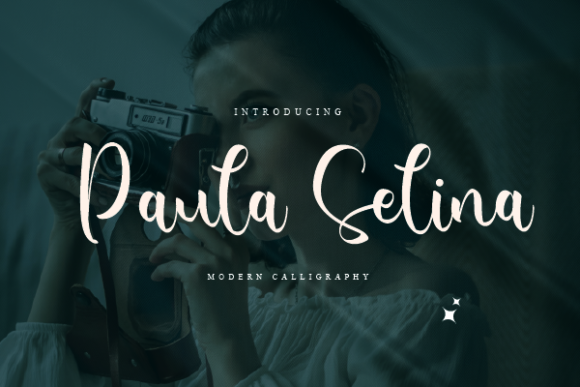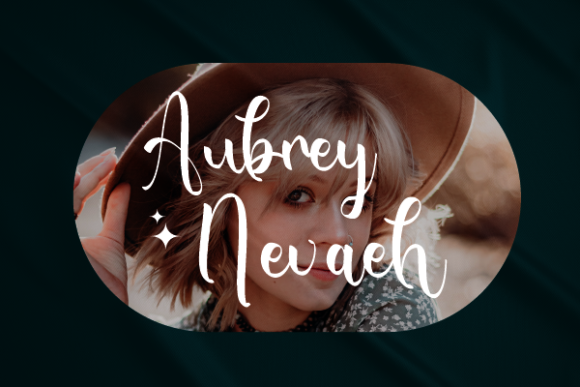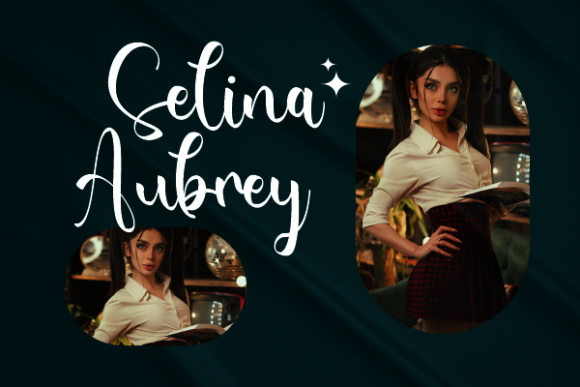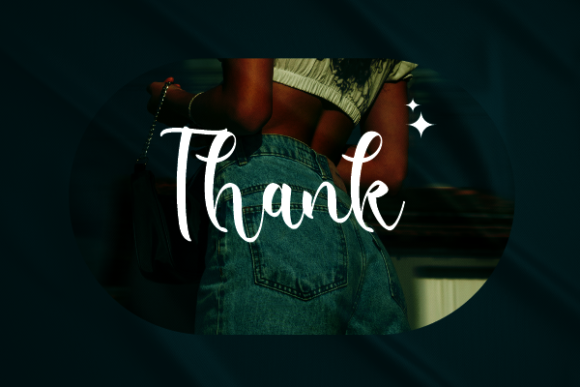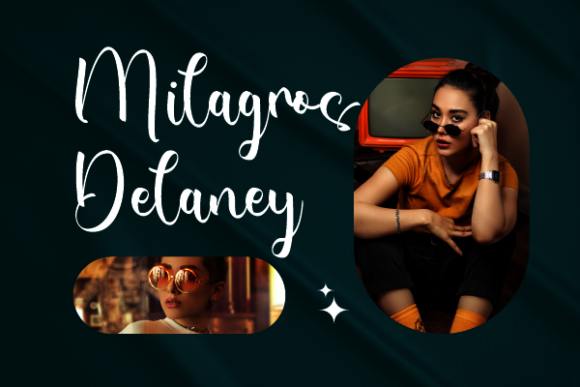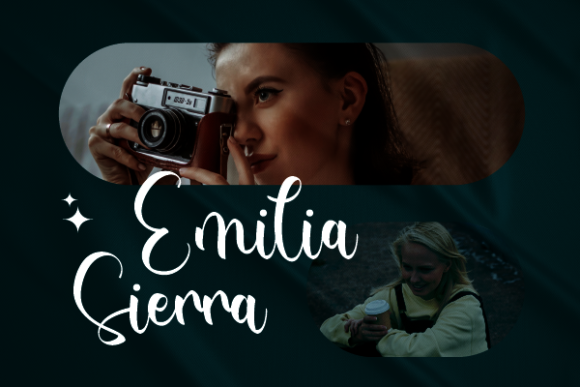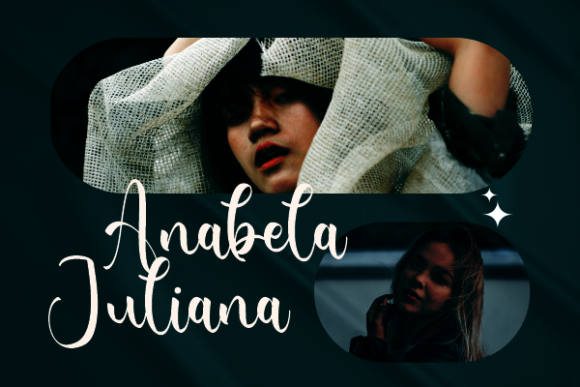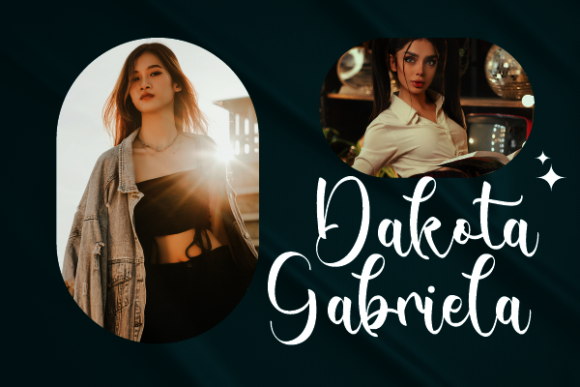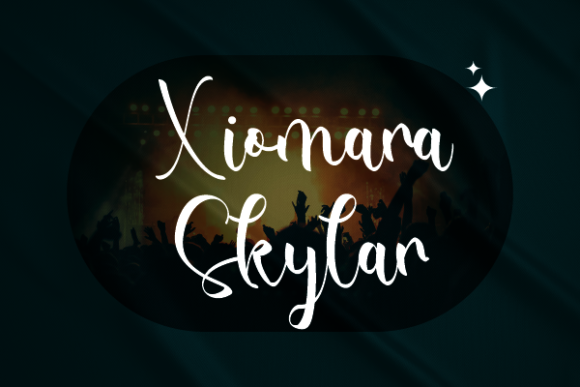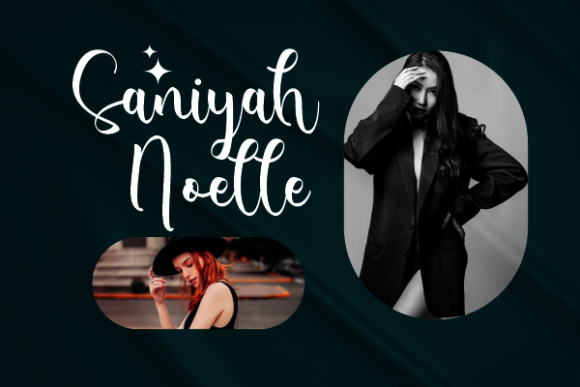
Paula Selina Font
About Paula Selina Font
Paula Selina is a lovely and timeless handwritten font. It is the best choice for creating eye catching logos, branding and quotes. Every letter has a unique and beautiful touch, which will make your design come alive!